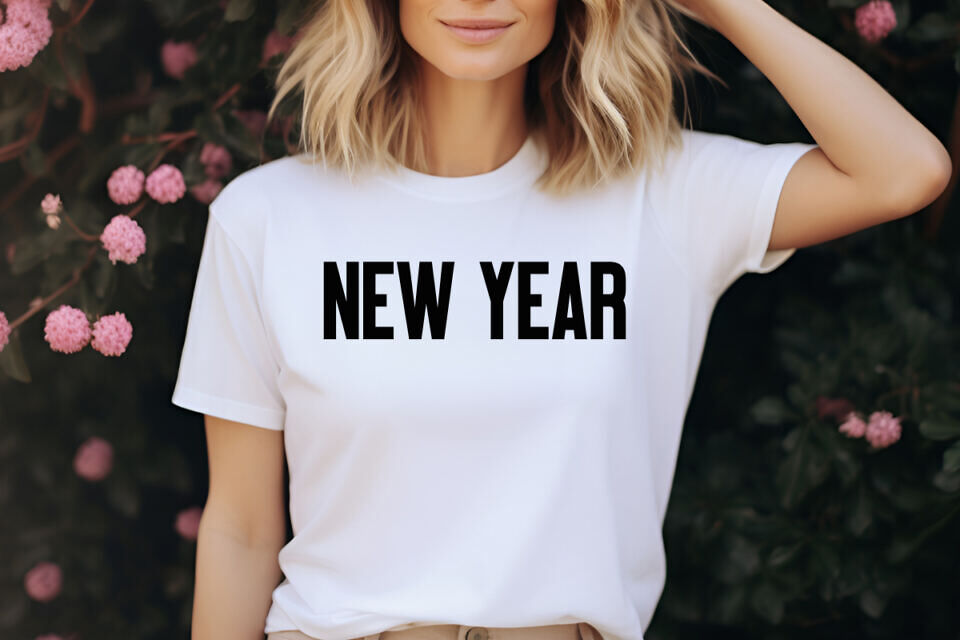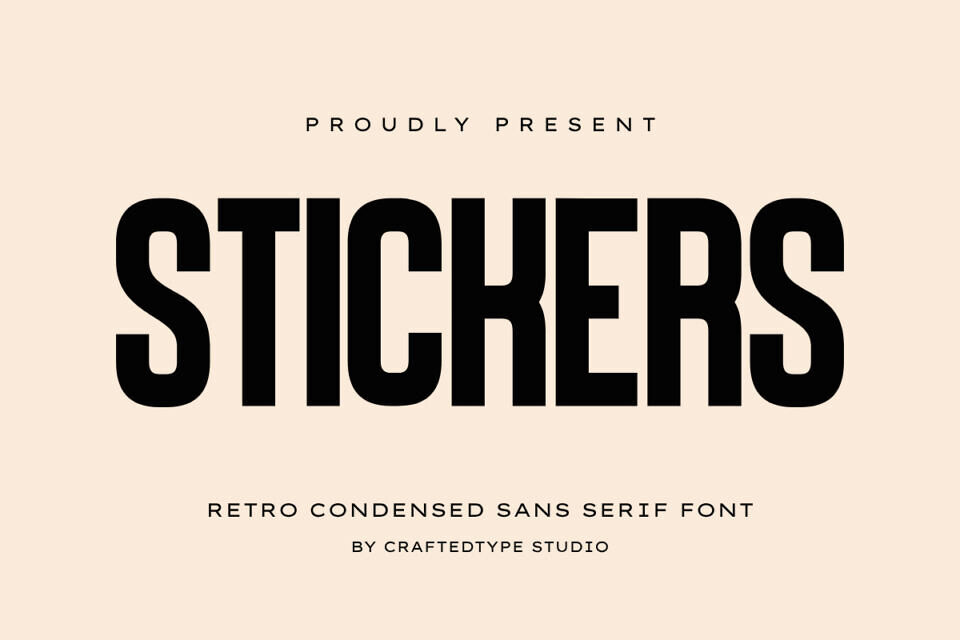
Stickers Font
Stickers is a sleek and stylish retro sans serif font designed for creators who value clean aesthetics and strong visual impact. With its bold, balanced letterforms and elegant spacing, this font is perfect for Print On Demand projects like t-shirts, posters, mugs, and tote bags, as well as for film titles, branding, logos, and modern packaging.